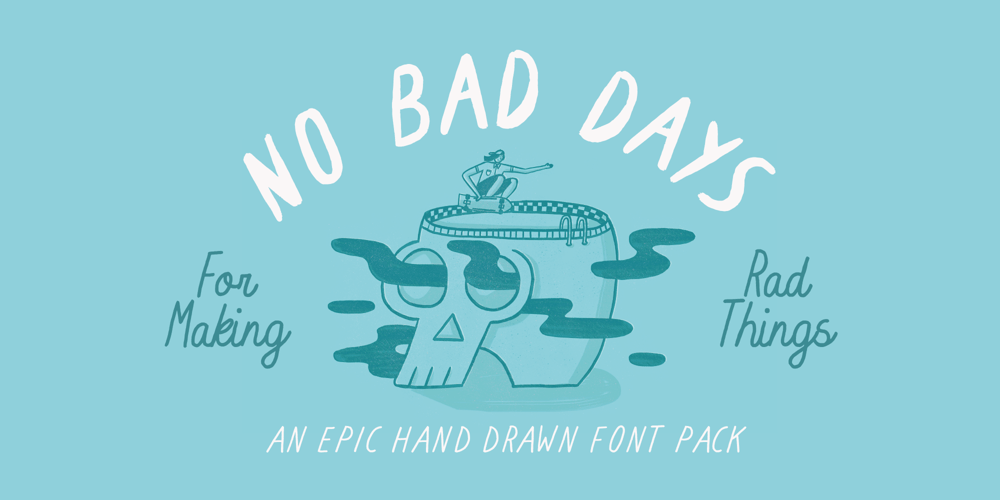
No Bad Days Font Family was designed by Jonty Storey and published by Cardigan. No Bad Days contains 2 styles and family package options. Get RAD with this unique, fun, handwritten font by Cardigan.This pack includes two fonts. A bold, brush font with a supporting thin, handwritten script font. These typefaces ooze good vibes, adding a fun and edgy style to any design. Whether you need a hand drawn feel to a logo or a bold organic font that jumps off any page. No Bad Days has your back and is a total dream to work with.